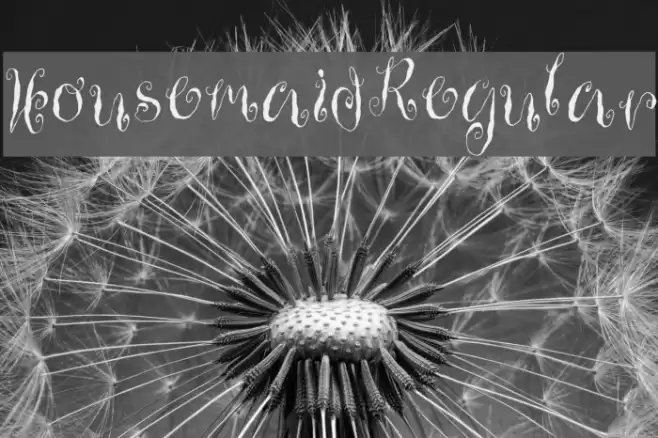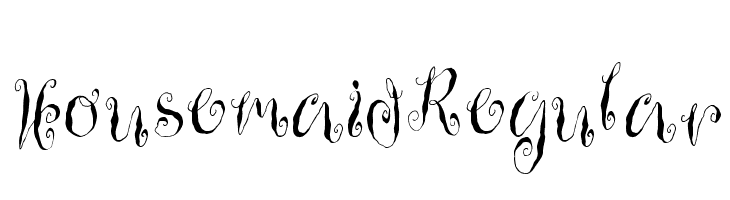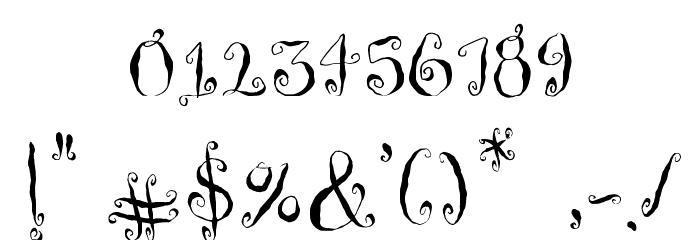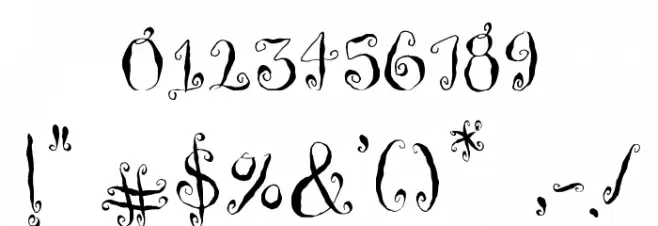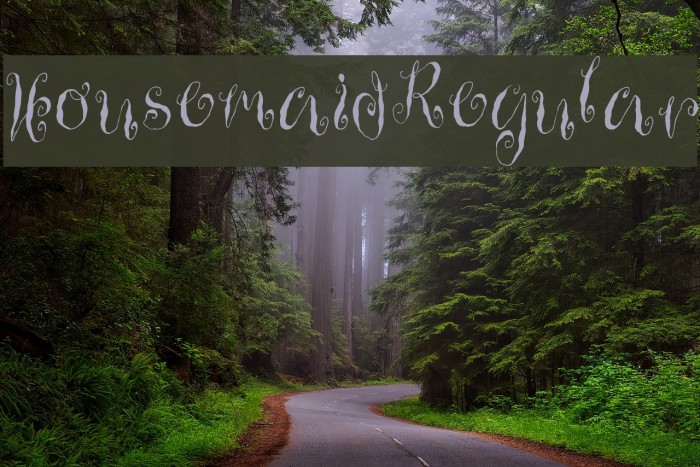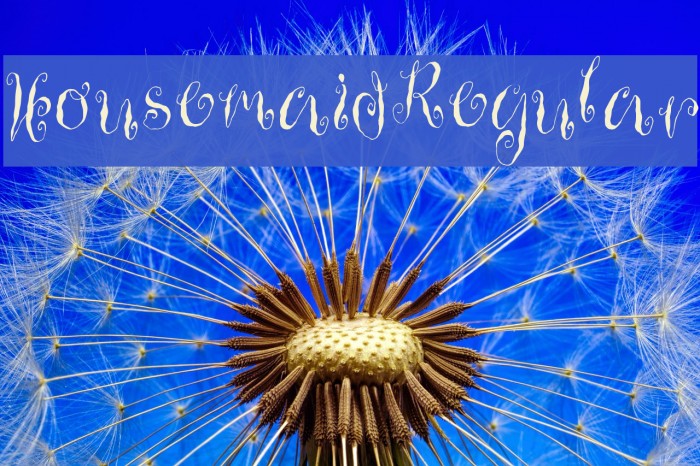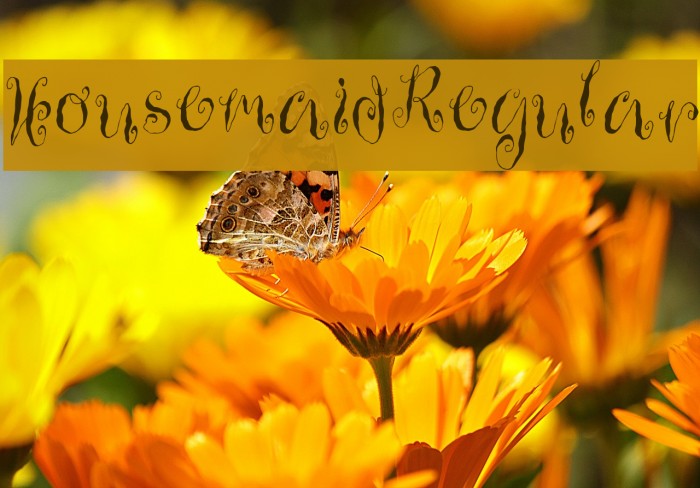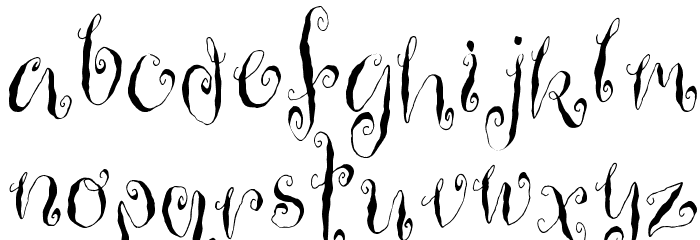
HousemaidRegular Font
HousemaidRegular Description
This font features a whimsical and decorative style, characterized by its curly and ornate letterforms. Each character is adorned with intricate swirls and loops, giving it a playful and artistic appearance. The uppercase and lowercase letters maintain a consistent design theme, with exaggerated curves and flourishes that add a touch of elegance and fantasy. The numbers and special characters follow the same decorative pattern, ensuring a cohesive look across all glyphs. This font is ideal for creative projects that require a unique and eye-catching typeface.
A whimsical and decorative font with curly, ornate letterforms from Basic fonts.
- Proposed Projects: Ideal for invitations, greeting cards, artistic posters, and branding that requires a playful and unique touch.
- Use Case: Logos, Headlines, Artistic projects